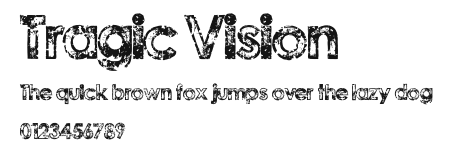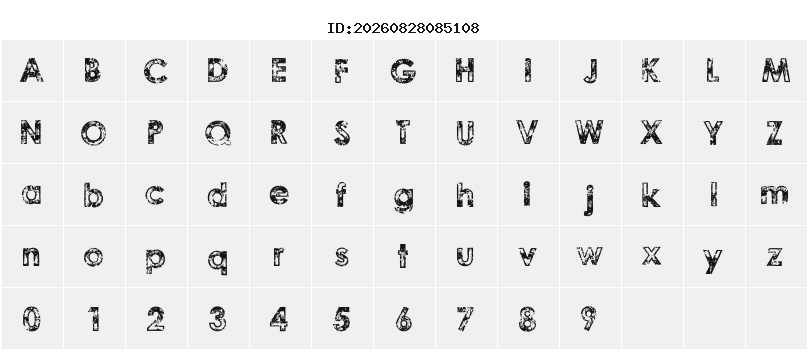
• Font Name: Tragic Vision
• Full Font Name: Tragic Vision
• Designer: Kevin Christopher
About Tragic Vision.ttf
Tragic Vision.ttf is a modern, elegant sans-serif font designed for ultimate readability and visual harmony. Perfect for branding, headlines, web design, and print materials.